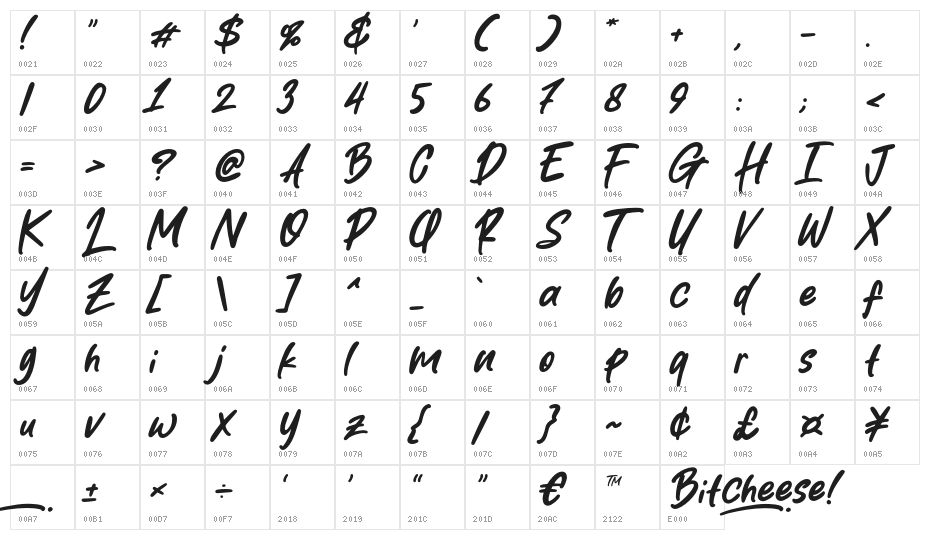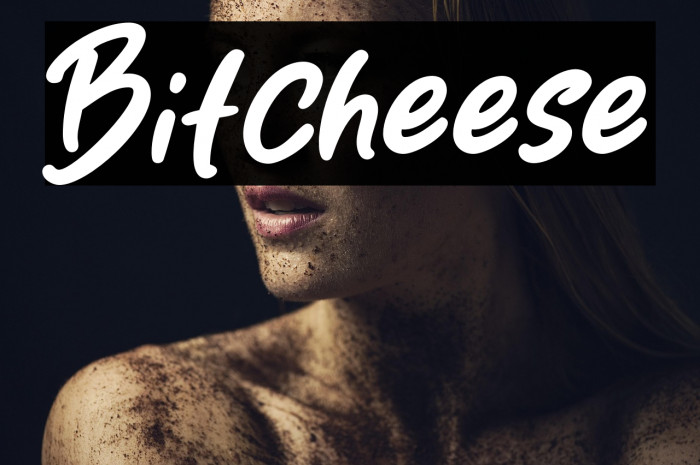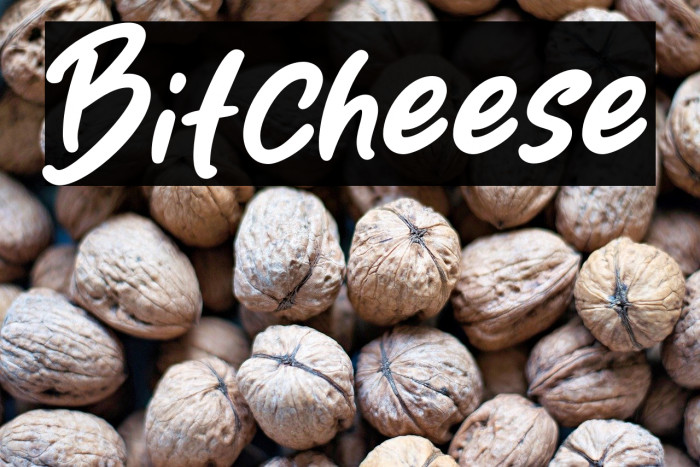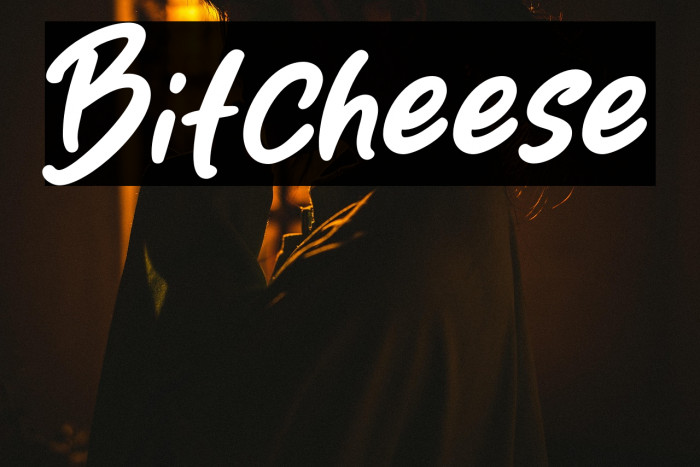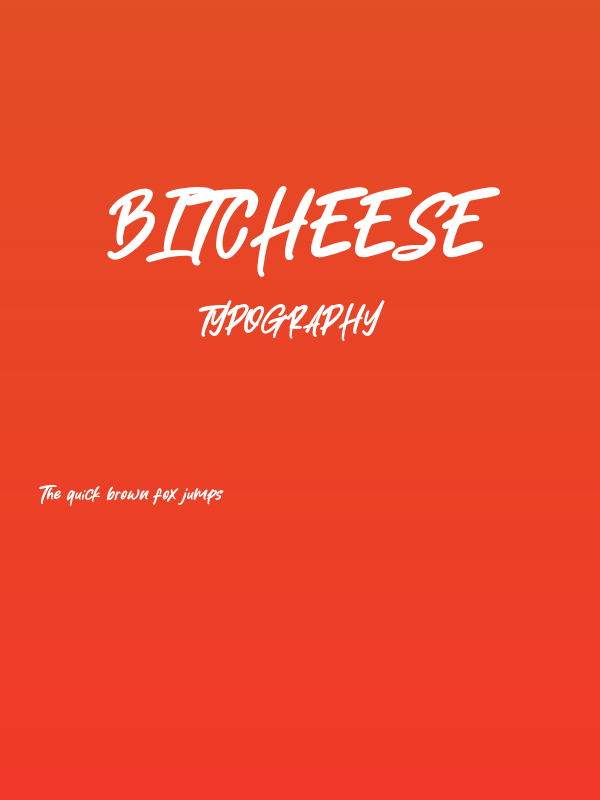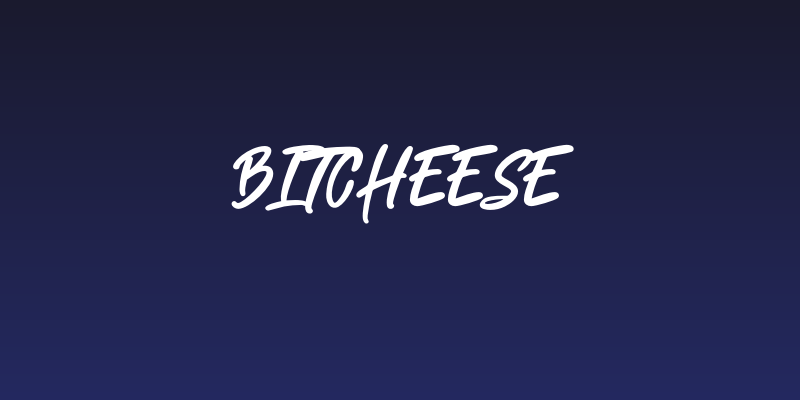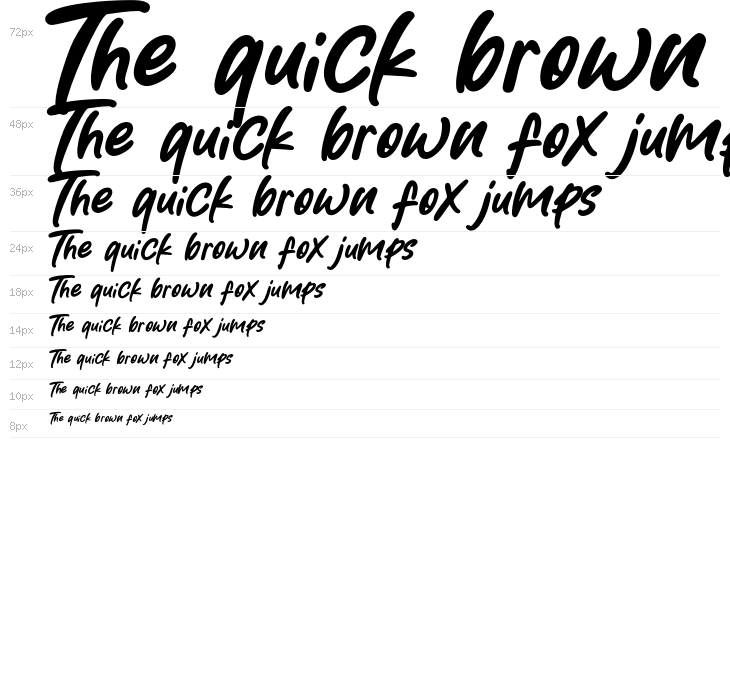
Bitcheese Font
Bitcheese Description
This font features a bold, energetic script style with a handwritten appearance. The letters are fluid and dynamic, showcasing a sense of motion and personality. The uppercase and lowercase letters maintain a consistent style, with rounded edges and smooth curves that give it a friendly and approachable feel. The numbers and special characters are equally expressive, maintaining the same lively aesthetic. This font is ideal for projects that require a personal touch or a sense of creativity and flair.
| Use Case | Logos, Headlines, Creative projects |
| Proposed Projects | Ideal for branding, social media graphics, invitations, and creative projects that require a personal touch. |